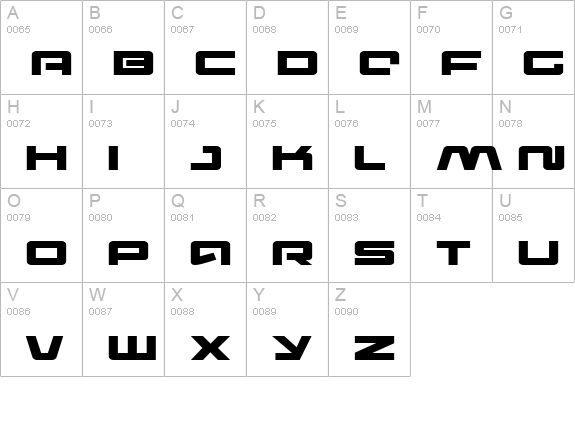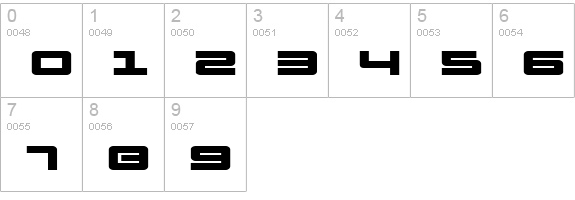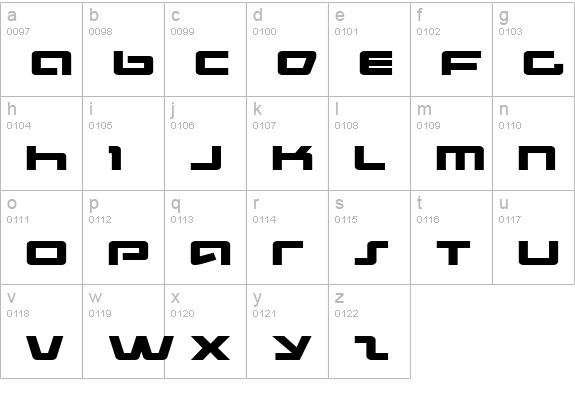
Pulse Rifle Expanded is a distinctive, extended-width variant in the Pulse typeface family \xE2\x80\x94 well suited to design and typography projects.
Introducing Pulse Rifle Expanded font, a sleek and modern typeface that exudes power and sophistication. This versatile font is perfect for a wide range of design projects, from branding to advertising to web design. With its clean lines and bold presence, Pulse Rifle Expanded commands attention and makes a statement. What sets Pulse Rifle Expanded font apart is its unique expanded design, which adds an extra level of impact to your text. Whether you're looking to create striking headlines or eye-catching logos, this font is sure to impress. The best part? Pulse Rifle Expanded font is completely free to download at FontsMarket.com. So why wait? Add this dynamic font to your collection today and take your designs to the next level.